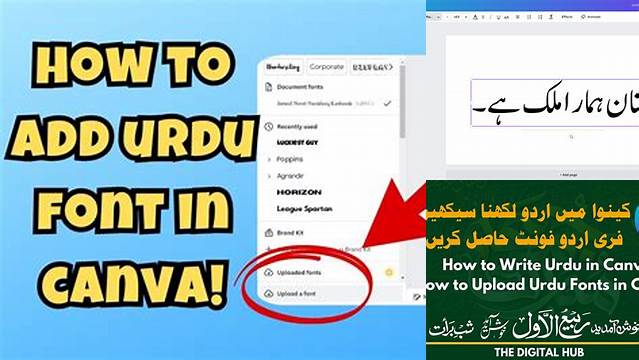
Canva Urdu Fonts: Free Guide & How-To
Are you looking to incorporate Urdu fonts into your designs using Canva, but don't want to break the bank? You're in luck! This guide will walk you through everything you need to know about using Urdu fonts in Canva for free, ensuring your designs are both visually appealing and culturally relevant. We'll cover finding suitable fonts, importing them into Canva, and overcoming any potential hurdles you might encounter. So, let's dive in and explore how you can easily add the beauty of the Urdu language to your Canva projects.
Finding the Perfect Free Urdu Fonts for Canva
The first step in your journey is to find the perfect Urdu fonts. There are numerous websites offering free fonts that you can use for personal and sometimes even commercial projects. However, it's essential to choose fonts that are legible, aesthetically pleasing, and compatible with Canva. When searching for Urdu fonts, consider the following:
- Font Style and Readability: Urdu fonts come in various styles, including Naskh, Nastaliq, and Ruq'ah. Nastaliq is generally considered the most beautiful and flowing, but it can sometimes be challenging to read at smaller sizes. Naskh is often more readable, making it a good choice for body text. Choose a font that suits your design's purpose and is easy to understand.
- Popular Urdu Font Recommendations: Some popular and well-regarded Urdu fonts include Jameel Noori Nastaliq (though you'll often need to find a downloadable version as it's not natively available on Canva), Alvi Nastaleeq, and Nafees Nastaliq. These fonts are widely used and generally offer good readability and aesthetic appeal.
Troubleshooting Common Issues with Urdu Fonts in Canva
Even with the correct font and the right subscription, you might encounter some issues when using Urdu fonts in Canva. Here are some common problems and how to solve them:
- Font Not Appearing: If your uploaded font does not appear in the font selection dropdown, double-check a few things. First, ensure that you have uploaded the correct font file (TTF or OTF). Second, make sure you have refreshed your Canva page after uploading the font. Third, verify that you are logged into the correct Canva account (Pro, Teams, Education, or Nonprofits). Lastly, try clearing your browser's cache and cookies, as this can sometimes interfere with font loading.
Conclusion: Unleashing the Beauty of Urdu in Your Canva Designs
Using Urdu fonts in Canva can add a unique and culturally rich dimension to your designs. With the right font, a Canva Pro subscription, and a little patience, you can create visually stunning graphics that celebrate the beauty of the Urdu language. Remember to choose your fonts wisely, troubleshoot any issues you encounter, and follow the best practices for design and layout. By embracing these tips and techniques, you can effectively showcase your designs and connect with a wider audience. Happy designing!